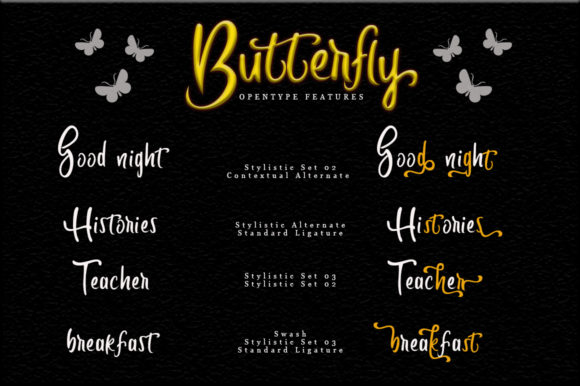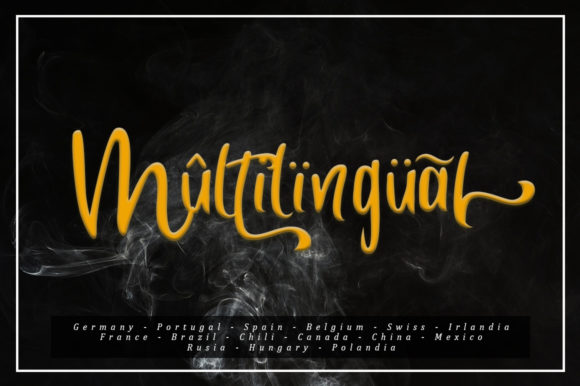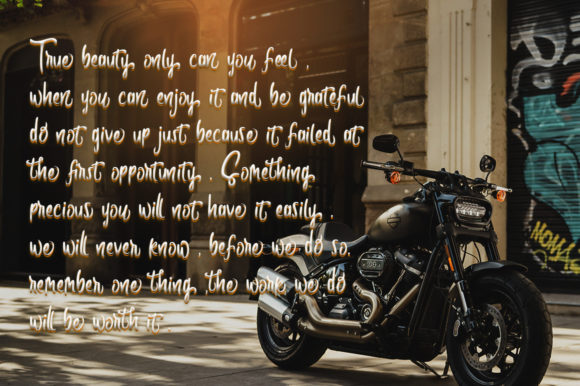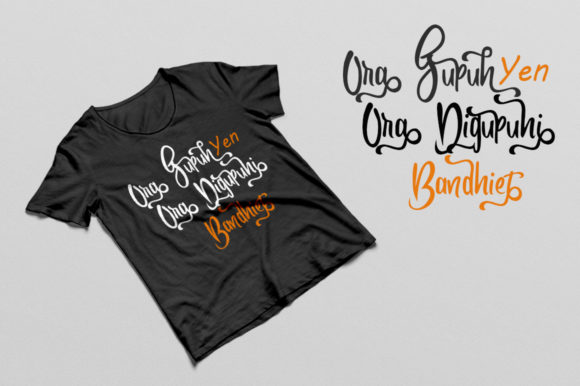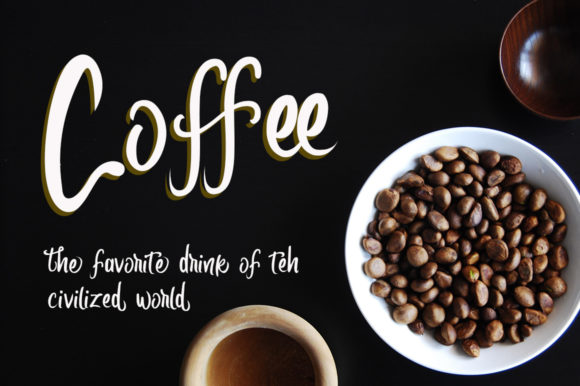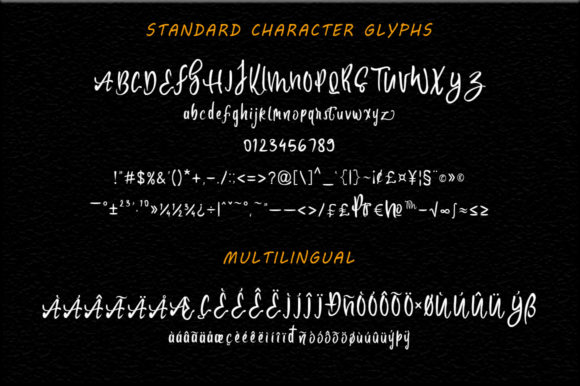
Introducing Butterfly Font: Elevate Your Designs with a Modern Calligraphy Twist
In the world of typography, fonts play a crucial role in bringing designs to life. For crafters, designers, and artists, selecting the right font can make all the difference in creating a visually stunning piece. If you’re on the hunt for a font that adds a personal touch to your designs, look no further than Butterfly Font. This modern calligraphy font with a bold twist is sure to elevate your creative projects and leave a lasting impression.
What is Butterfly Font?
Butterfly Font is a contemporary calligraphy font that combines elegance with a bold, modern edge. Its unique design makes it perfect for a wide range of creative projects, from digital designs to handmade crafts. Whether you’re working on a logo, invitation, or social media graphic, Butterfly Font is sure to add a touch of sophistication and personality to your work.
Key Features of Butterfly Font
- Modern Calligraphy Style: Butterfly Font boasts a modern calligraphy style that’s both fresh and timeless. Its flowing lines and curves give it a dynamic, hand-crafted feel that’s perfect for designs that require a personal touch.
- Bold Twist: What sets Butterfly Font apart is its bold twist. The font’s letters are designed with a confident, expressive flair that’s sure to make your designs stand out.
- Versatile: Whether you’re creating digital designs or handmade crafts, Butterfly Font is versatile enough to work seamlessly across various mediums.
- Easy to Read: Despite its bold and artistic design, Butterfly Font remains easy to read, making it perfect for use in a variety of applications, from titles and headings to body text.
Uses of Butterfly Font
Butterfly Font’s versatility makes it suitable for a wide range of creative projects. Here are some ideas to get you started:
- Digital Designs: Use Butterfly Font to create stunning social media graphics, blog headers, and digital invitations that are sure to grab attention.
- Handmade Crafts: Add a personal touch to your handmade crafts, such as journals, cards, and scrapbooking projects, with Butterfly Font.
- Branding and Logo Design: Create a lasting impression with Butterfly Font by using it for your logo or brand identity.
- Wedding and Event Planning: Make your wedding or event invitations, programs, and signage truly special with Butterfly Font.
Tips for Using Butterfly Font Effectively
To get the most out of Butterfly Font, here are some tips to keep in mind:
- Experiment with Colors: Butterfly Font looks great in a variety of colors. Experiment with different hues and combinations to find the perfect match for your design.
- Mix and Match: Don’t be afraid to mix and match Butterfly Font with other fonts to create a unique and visually interesting design.
- Pay Attention to Spacing: Make sure to adjust the spacing between letters and words to ensure your design looks balanced and harmonious.
Butterfly Font is a modern calligraphy font with a bold twist that’s sure to add a personal feel to any design idea. Its versatility, elegance, and ease of use make it a valuable addition to any designer’s or crafter’s toolkit. Whether you’re working on a digital design or a handmade craft, Butterfly Font is the perfect choice for those looking to elevate their creative projects and make a lasting impression.